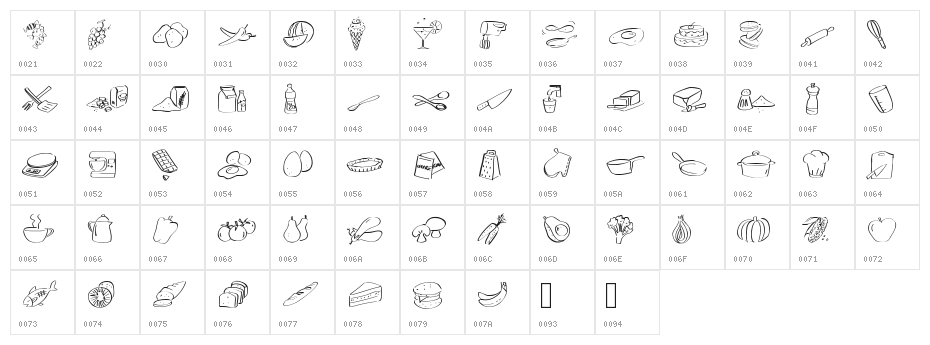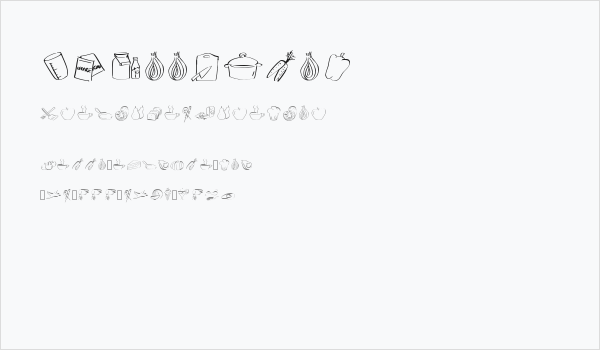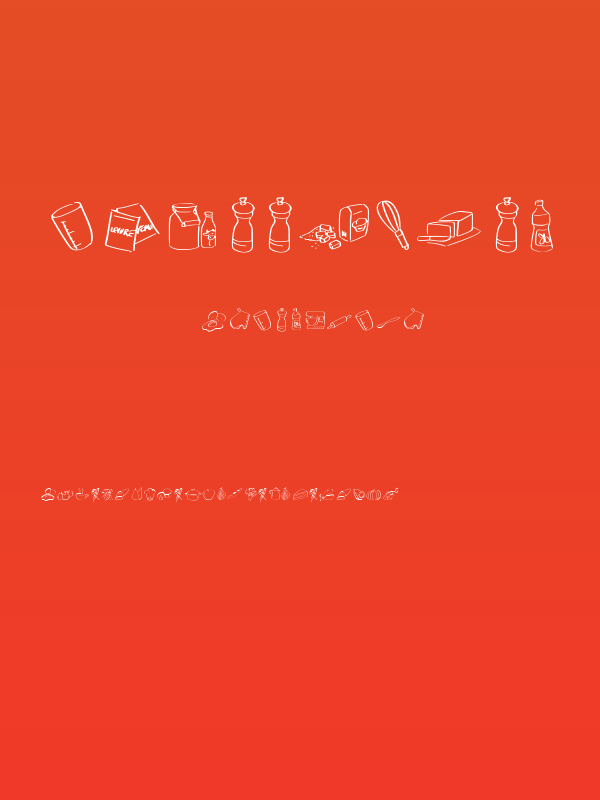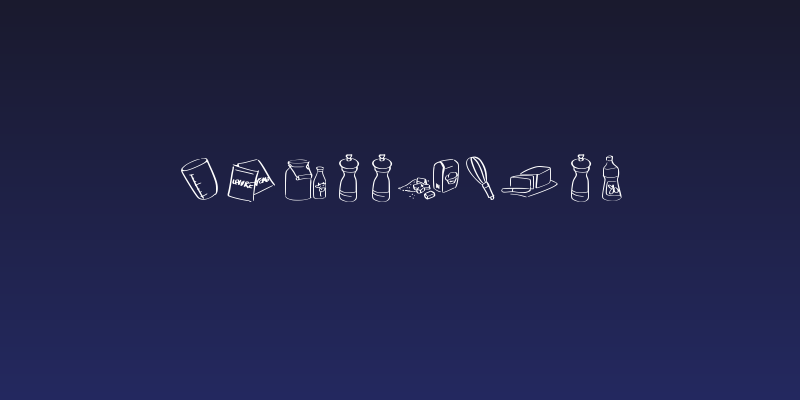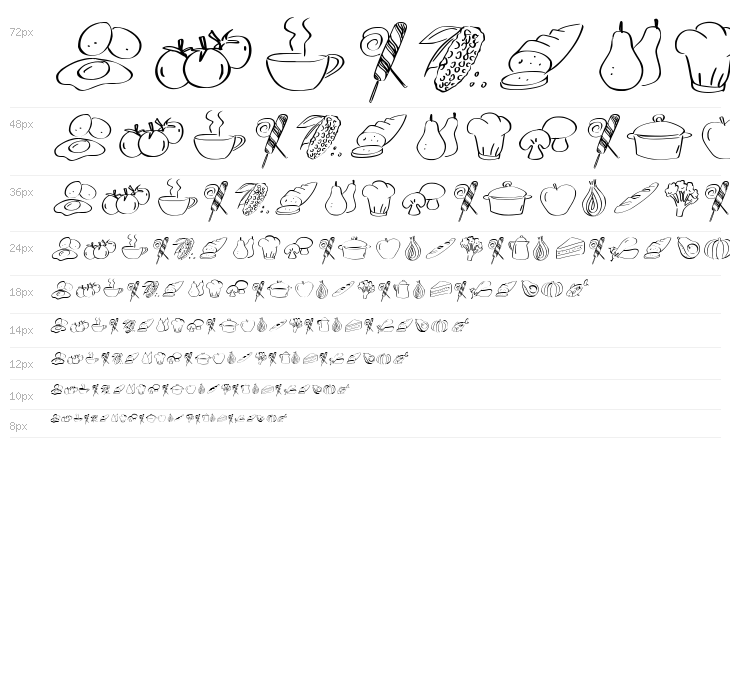
PWFoodblog Font
PWFoodblog Description
A playful, hand-drawn icon set featuring various food, kitchen utensils, and cooking-related items. The linework is loose and organic, giving a whimsical and approachable feel. Each character is represented by a unique illustration rather than traditional letterforms.
Overall StyleDecorative, Playful, Hand-drawn
Use CaseLogos, Headlines, Illustrative elements, Themed graphics
Proposed ProjectsRecipe blogs, children's cookbooks, food packaging, restaurant menus, culinary infographics, educational materials.